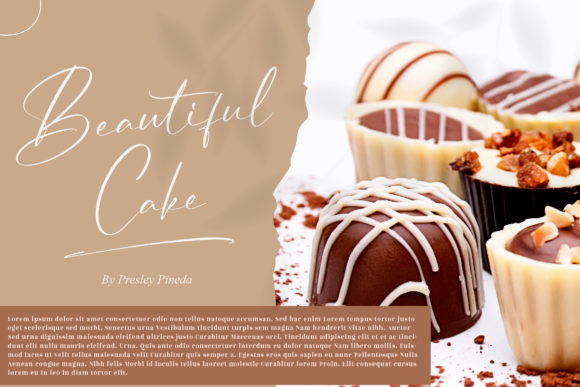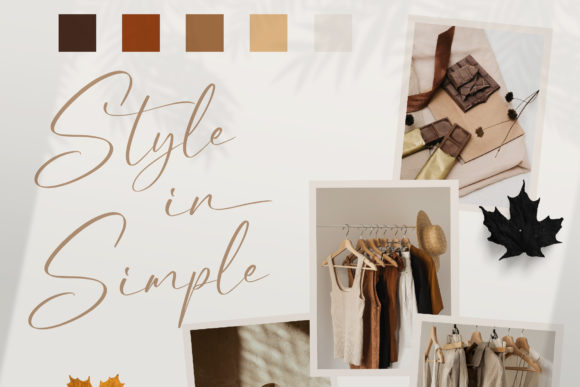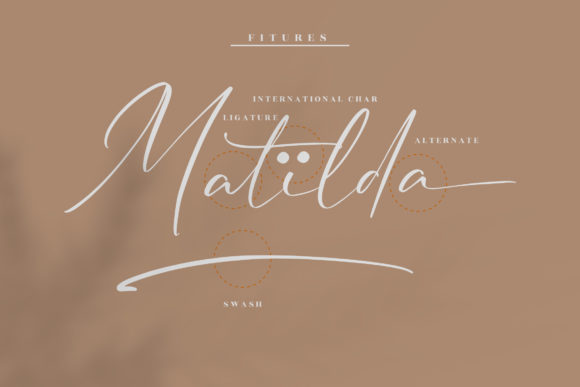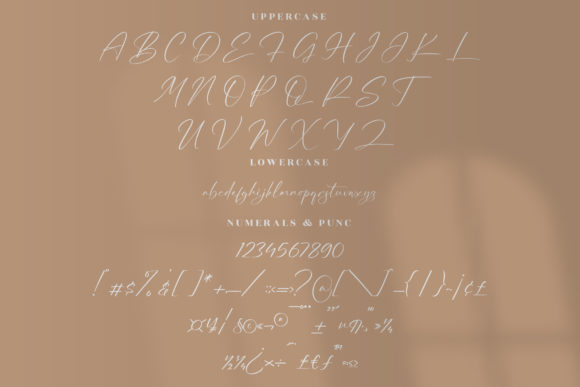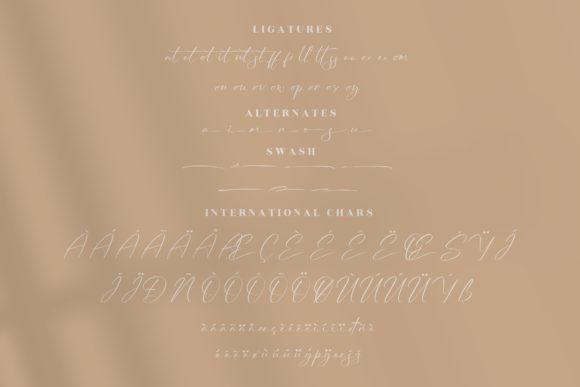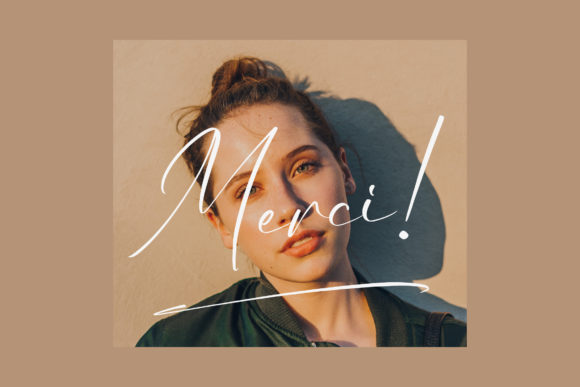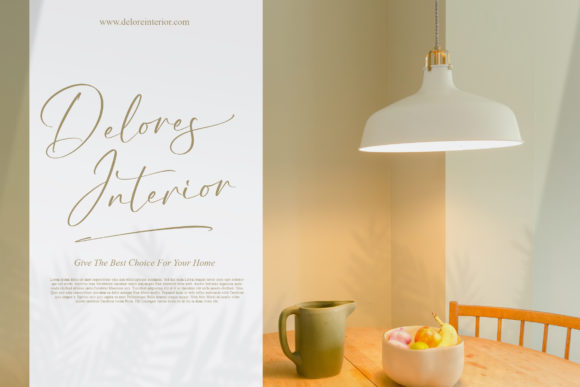
Futuristic Bright Font
About Futuristic Bright Font
Futuristic Bright is a thin lettered and graceful script font. Fall for its ravishing style and use it to create gorgeous designs. This font is PUA encoded which means you can access all glyphs and swashes with ease!